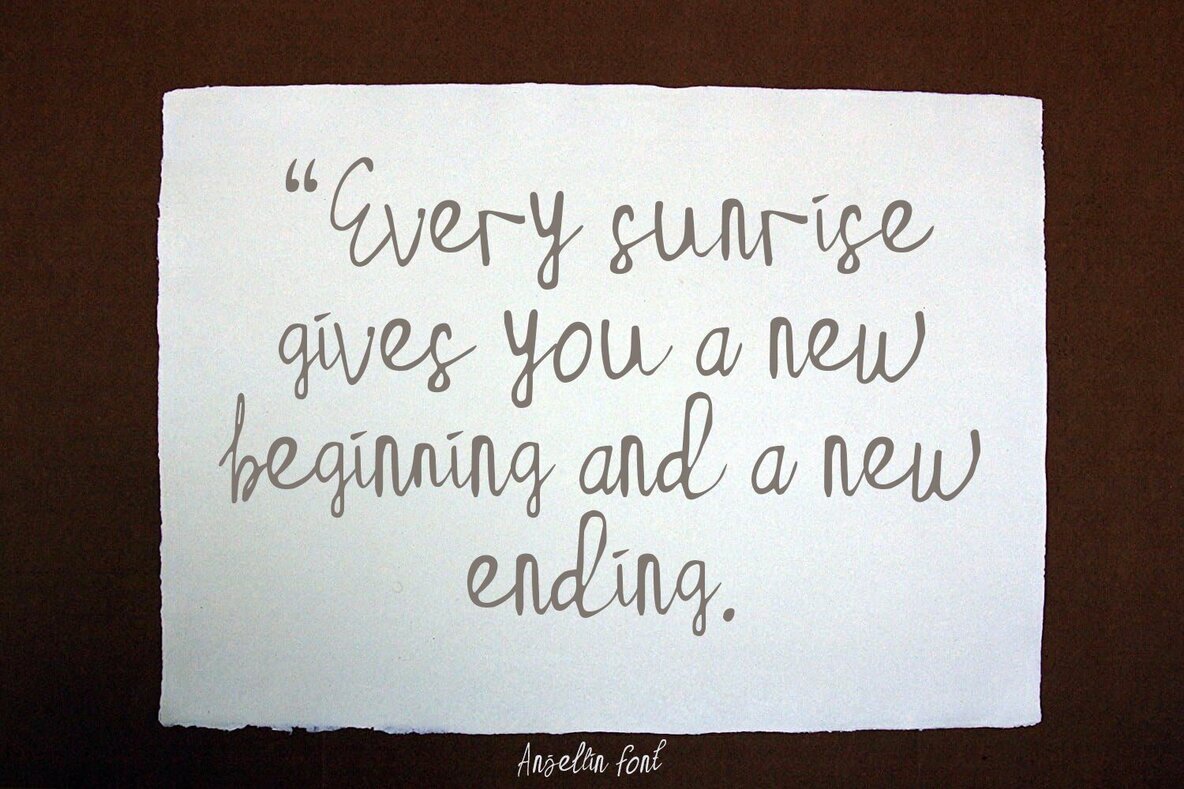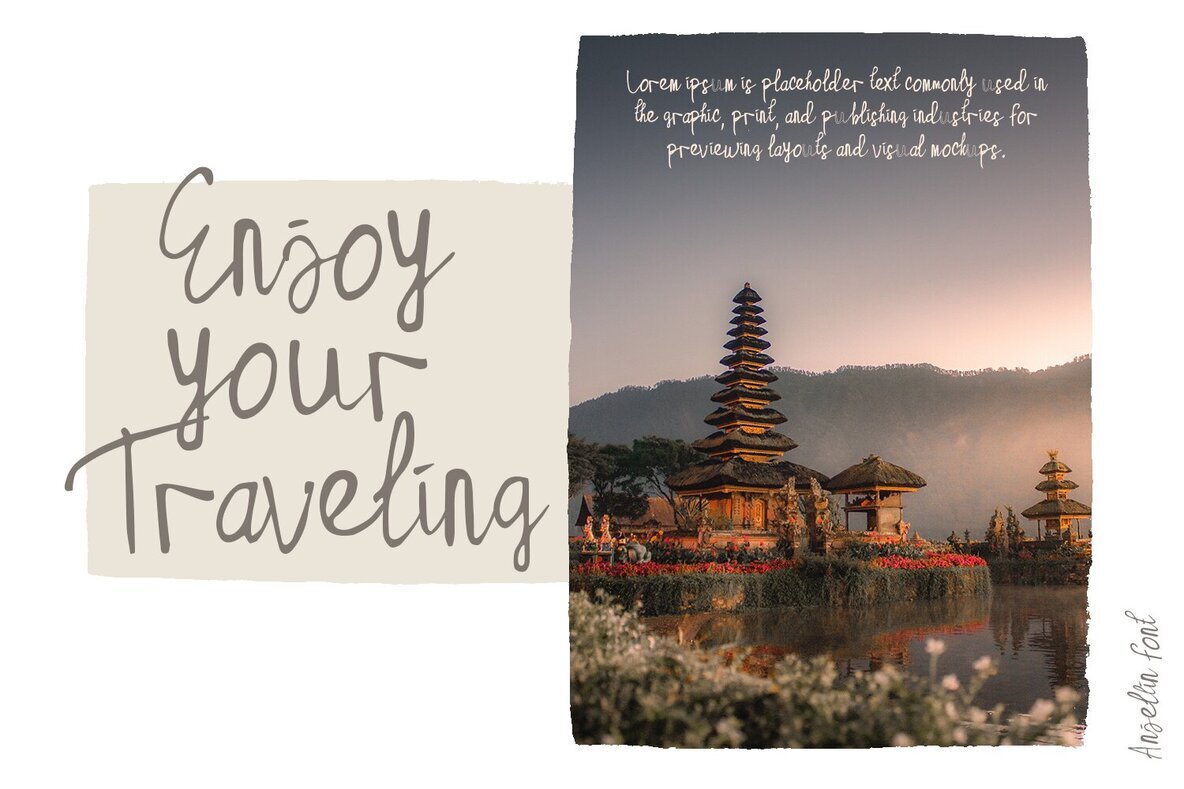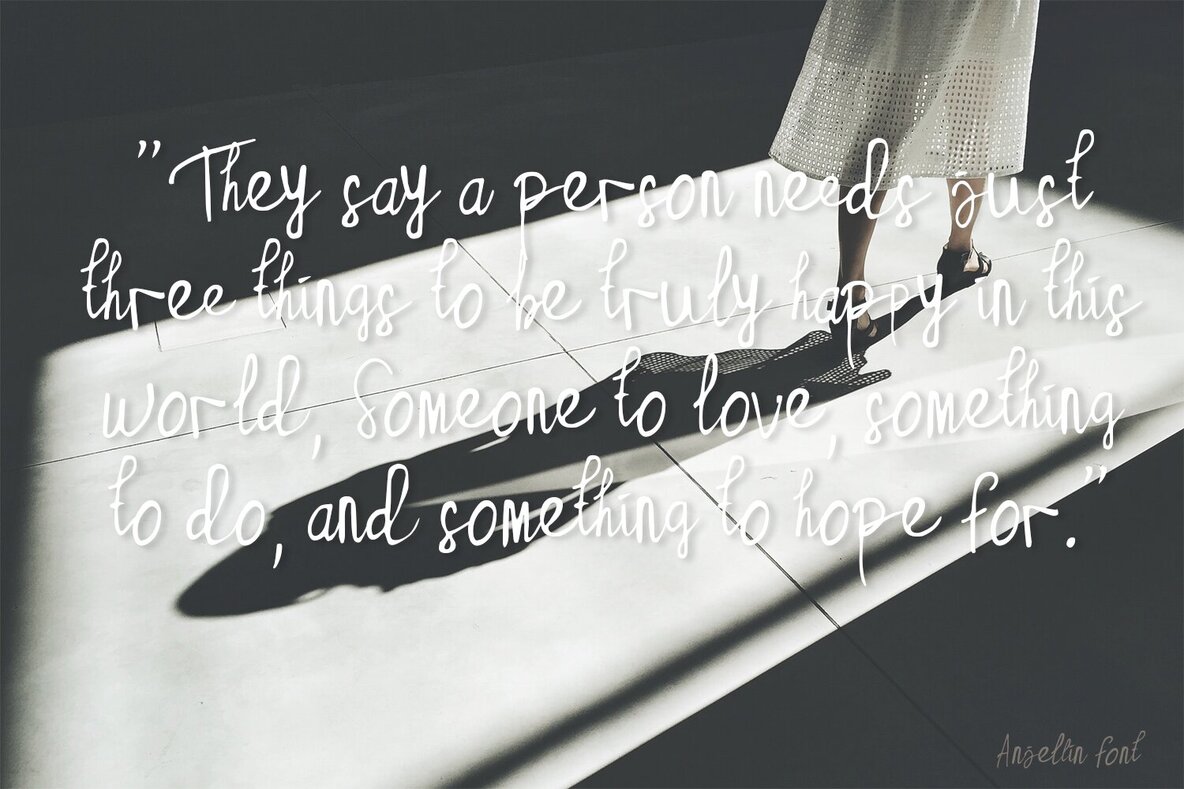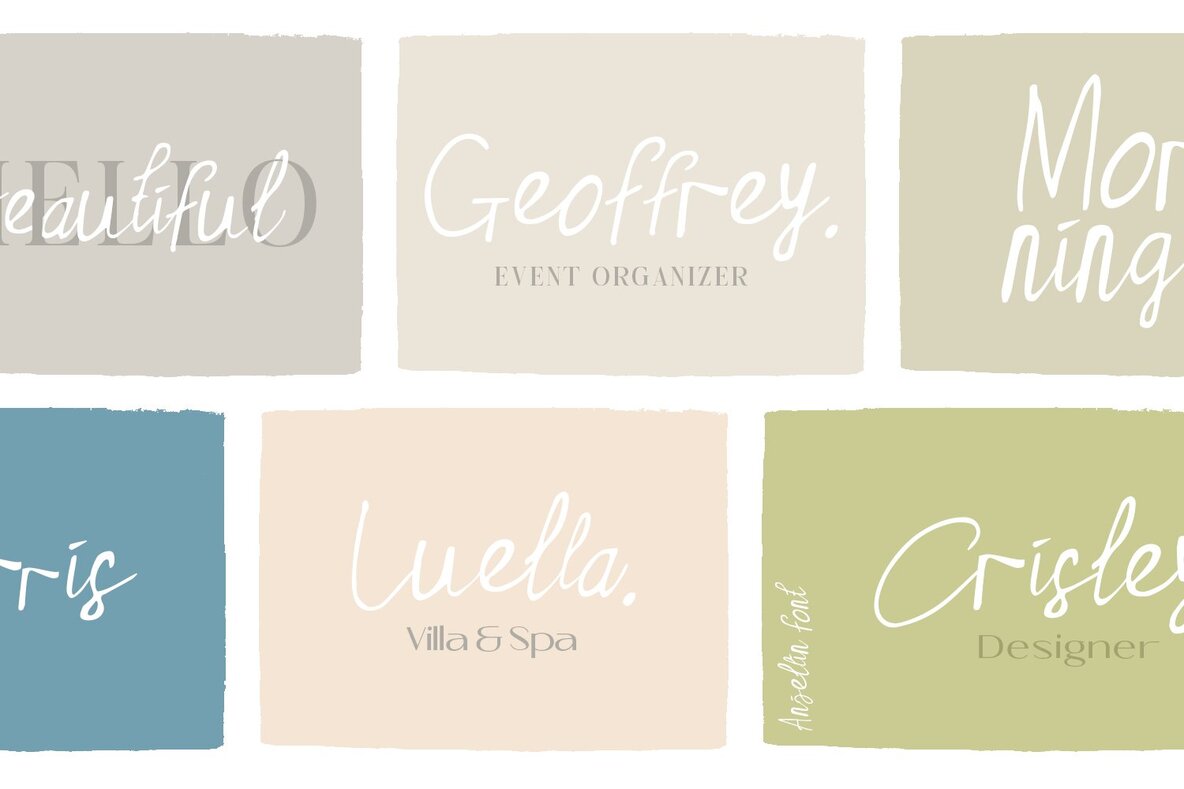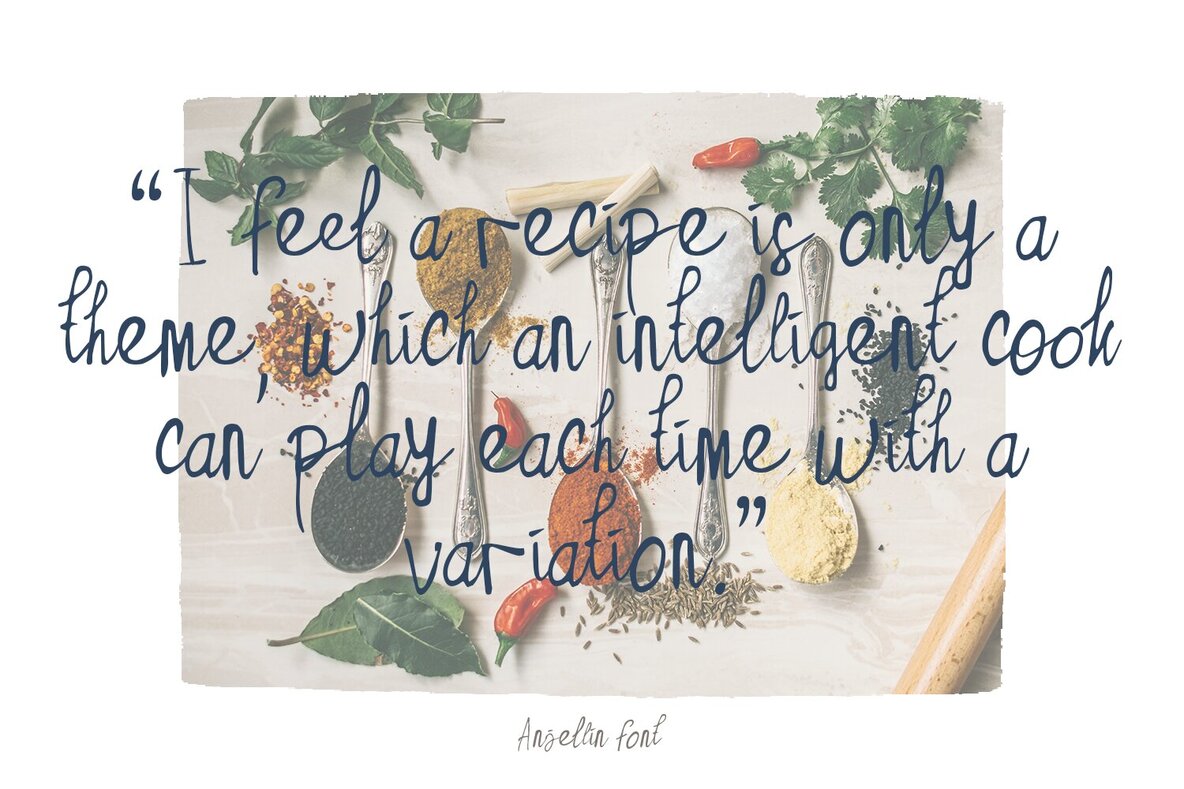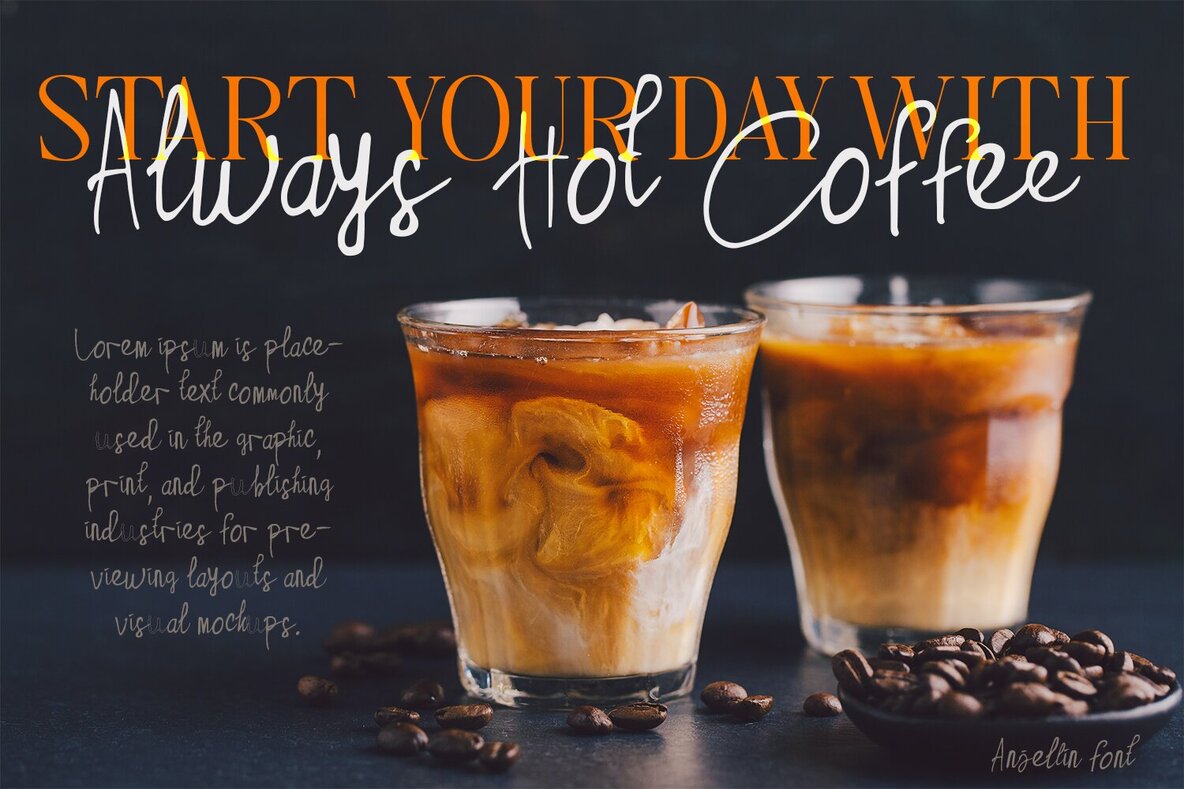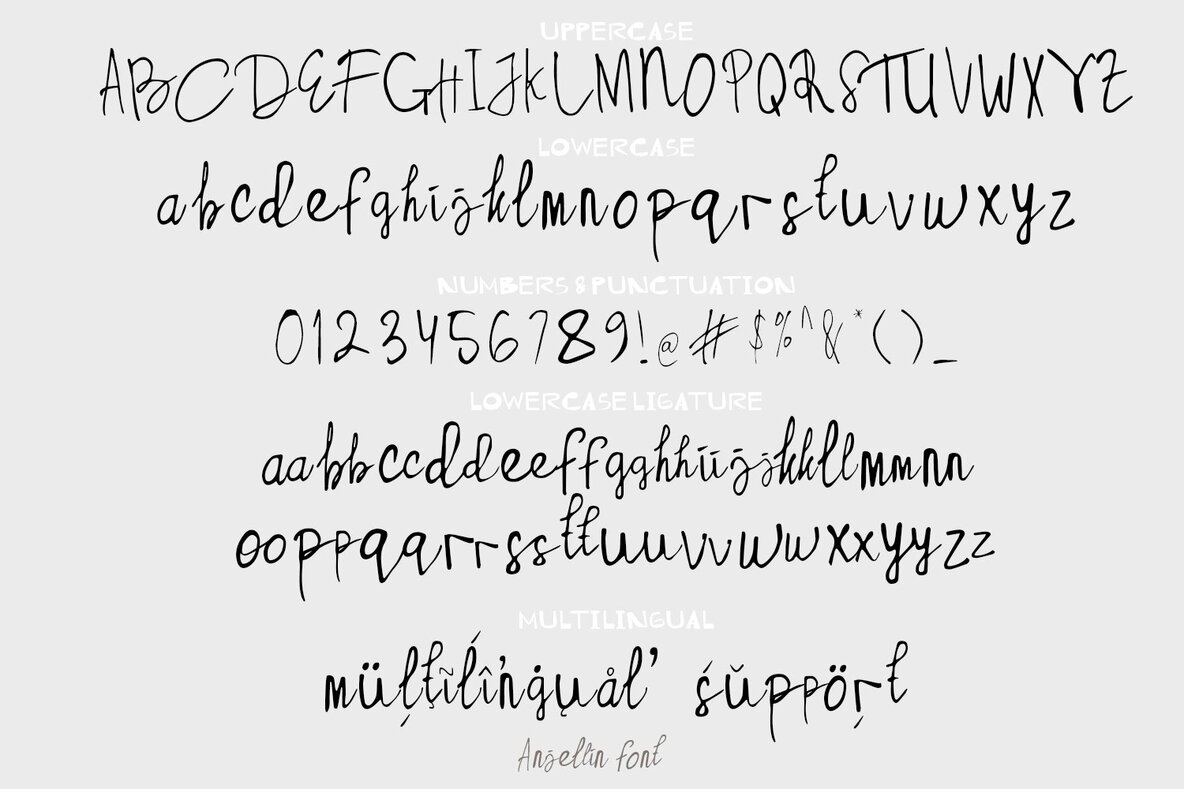
Anjellin 1
Bring some whimsical fun to your designs with The Khaollin! This playful font is ideal for all sorts of projects, from book titles and branding to product packaging and invitations. Whether you need a logo, poster, label, t-shirt or quote design, The Khaollin will help you create something truly unique. Try it today!